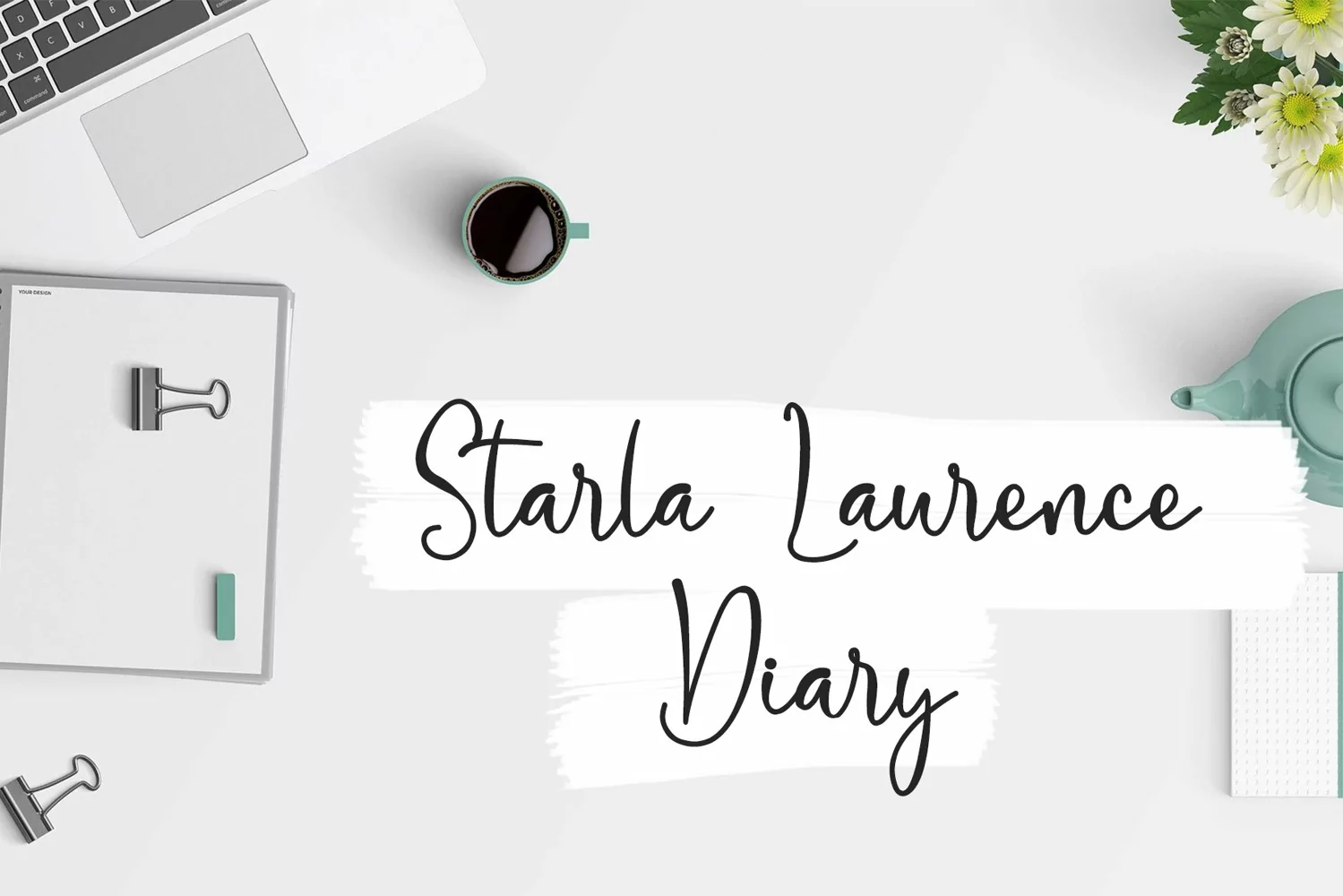
Beautiful Handwritten
Biolina Larasita
Biolina Larasita is a Handwritten Style font by Letterafa Studio. It has flowing letters that will give your designs a unique and sweet look. Biolina Larasita font is perfect; logos, greeting cards, a package design, a brand identity, craft design, any DIY project, book title, wedding invitation, packaging, and more.
- Basic Uppercase and Lowercase
- Alternate & Swashes
- Ligature
- Number and Punctuation